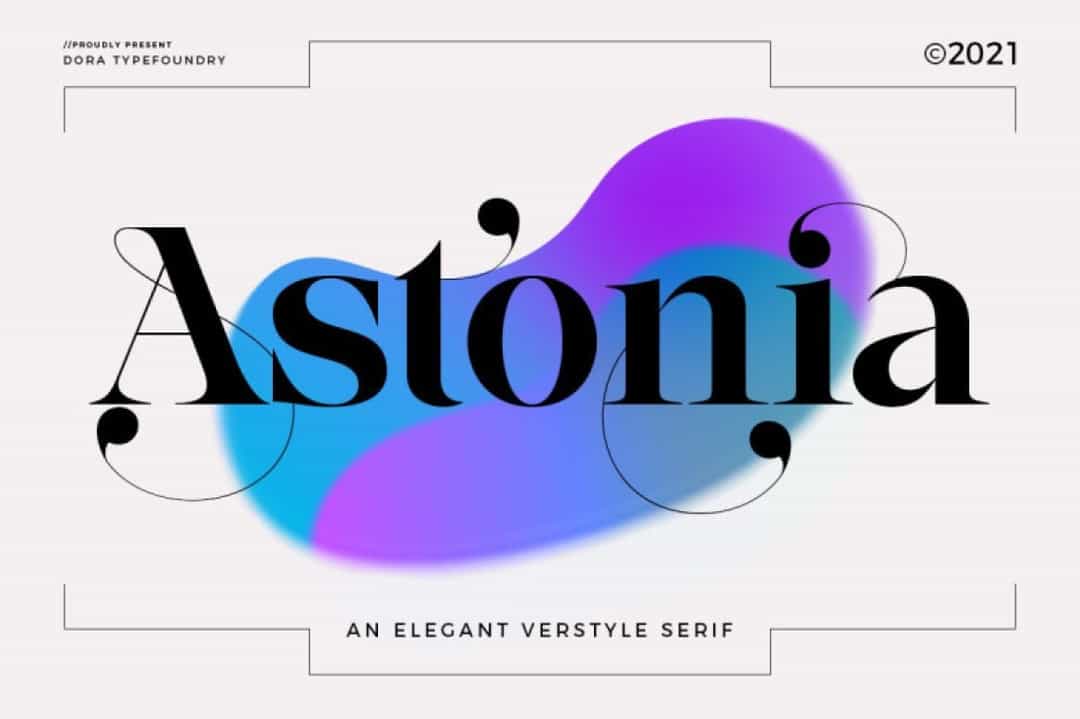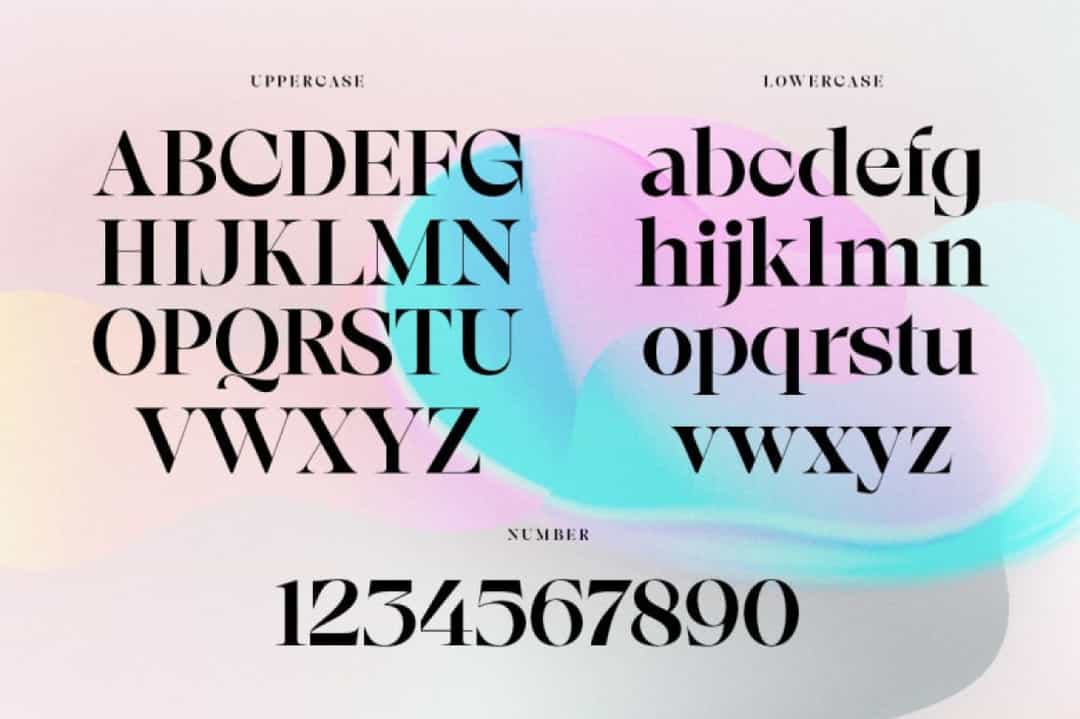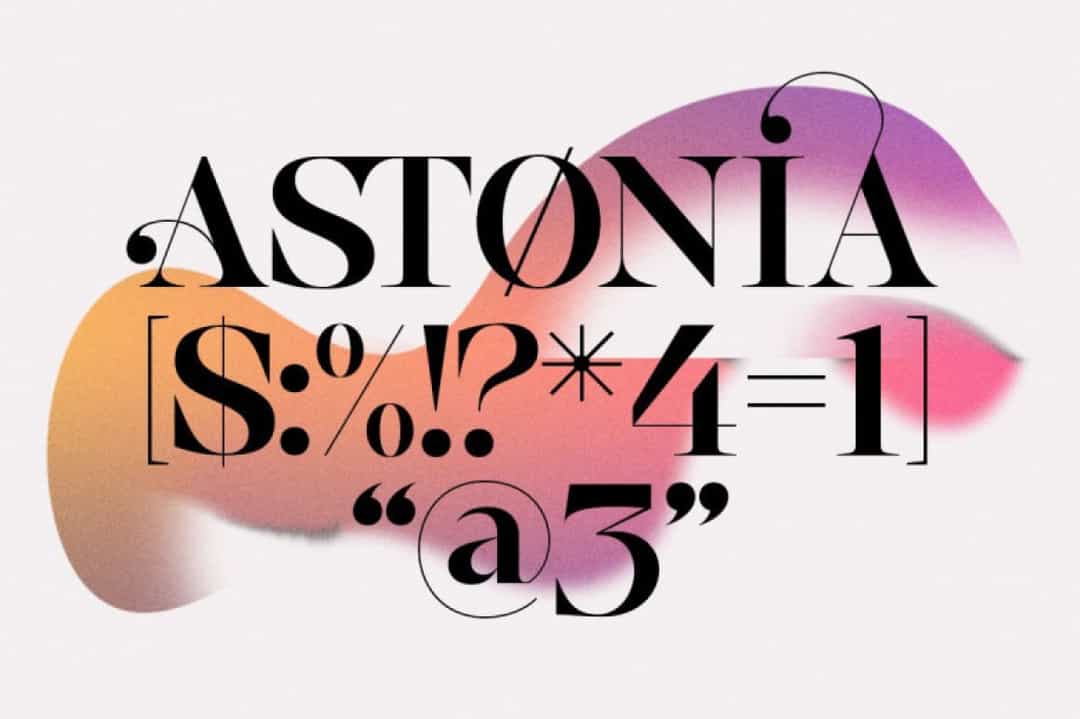
Astonia is an elegant serif typeface designed with class and luxury in mind, exuding feminine glamour while still exuding beauty with its wide array of options and bindings that allow for endless artistic variations. It features sharp contrasts between its subtle features such as lavish curvatures and flowing strokes for striking visual compositions that combine glamour with modern aesthetics.